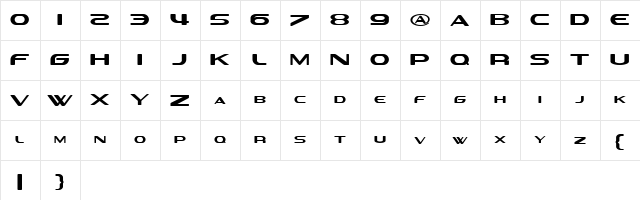
Sevil alias Esra Lite Regular
Design Context for Sevil alias Esra Lite Typeface
Sevil alias Esra Lite takes a measured approach to typography — its balanced proportions and neutral character make it a reliable workhorse for both digital and print work.